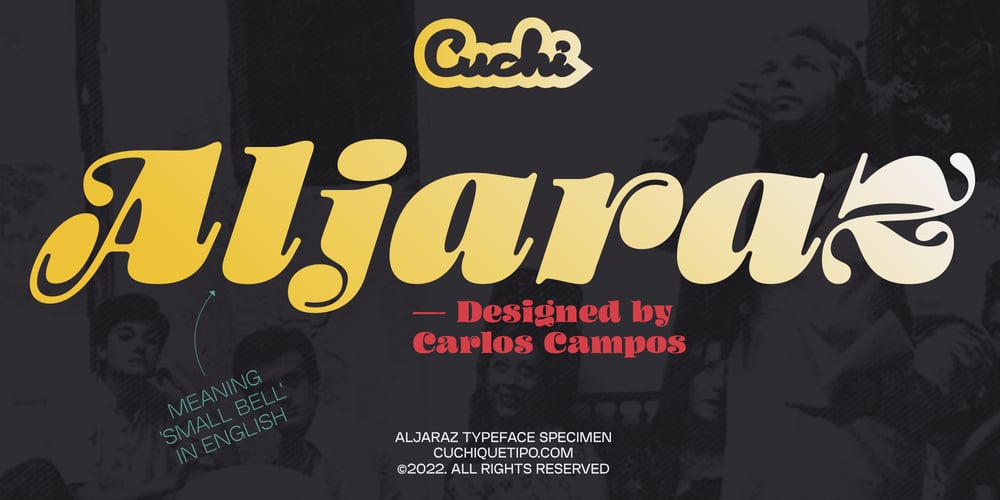
Aljaraz Font Family was designed by Carlos Campos and published by Cuchi, qué tipo. Aljaraz contains 2 styles and family package options. Aljaraz (meaning “small bell” in english) is a curvy typeface inspired on the “Fat face” letters with an extremely bold design from the early 19th century, but with an insolent touch of brave and psychedelic distortions.Aljaraz has a regular and italic variable, and in both styles the capital letters have a swash alternative where the naughty touch reaches its maximum expression. It is ideal to recall the lysergic era of the 60s, write funny words, or simply to express small texts in a display way that powerfully attracts attention.Let Aljaraz inspire you groovy kind of love!Designed by Carlos Camposcuchi@cuchiquetipo.comSecondary typeface: ‘Escuela’, also by Carlos Campos_Aljaraz (“campanita”) es una tipografía curvy inspirada en las letras con un diseño extremadamente grueso y atrevido de principios del siglo XIX (las “Fat face”), pero con un toque insolente de valientes distorsiones psicodélicas.Aljaraz tiene una variable regular y cursiva, y en ambos estilos las mayúsculas tienen una alternativa súper decorada donde el toque travieso alcanza su máxima expresión. Es ideal para rememorar la época lisérgica de los años 60, escribir palabras graciosas, o simplemente expresar textos graciosos de una forma visual que llame poderosamente la atención.¡Deja que Aljaraz te inspire su maravilloso amor!